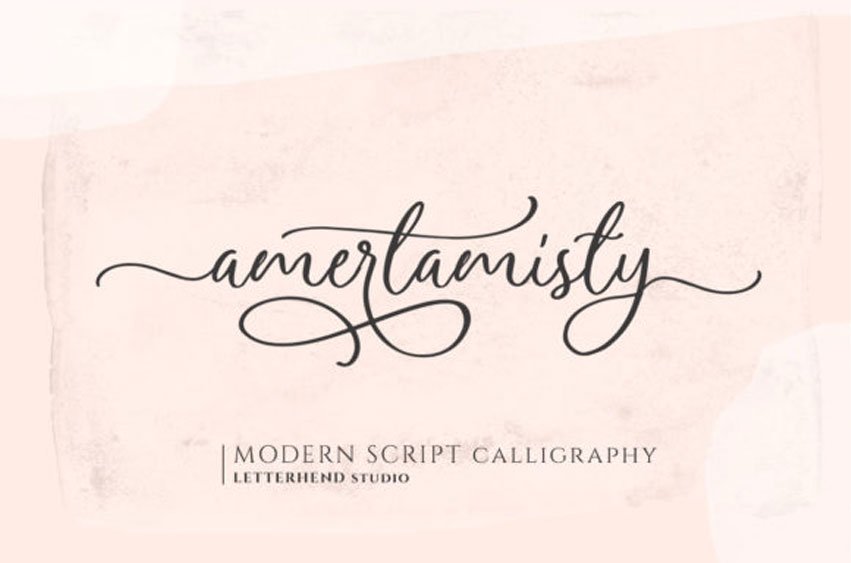
Amerta Misty Font Script is a sweet and simple crafting font that’s ideal for adding a romantic touch to your next design idea.
This font is well-suited for a variety of contexts, such as print design, promotional materials, or magazine layouts.